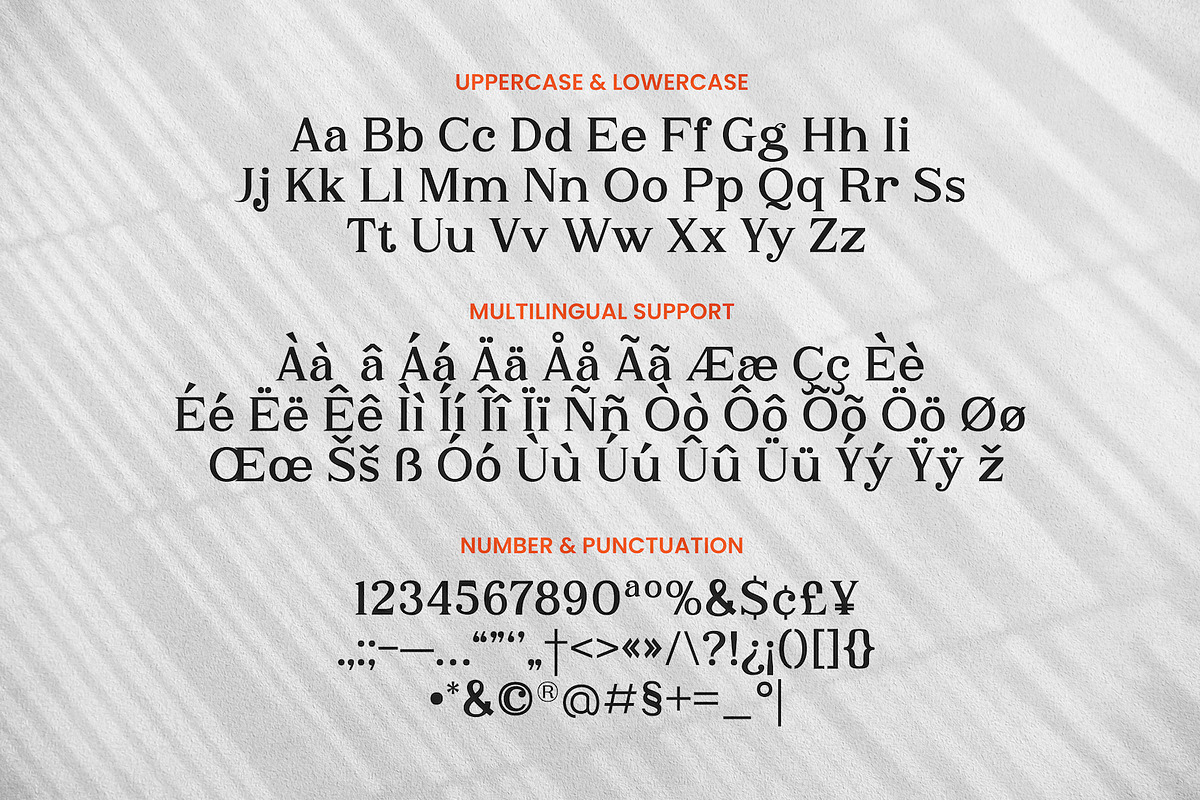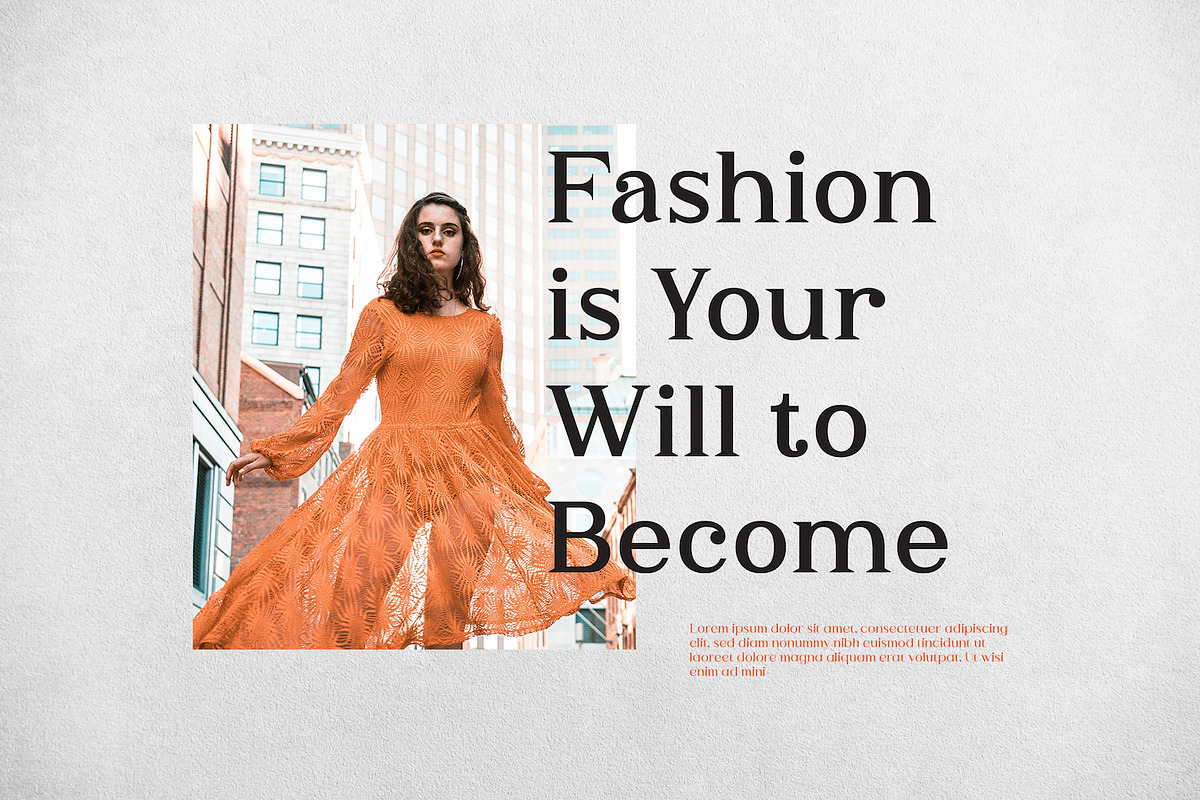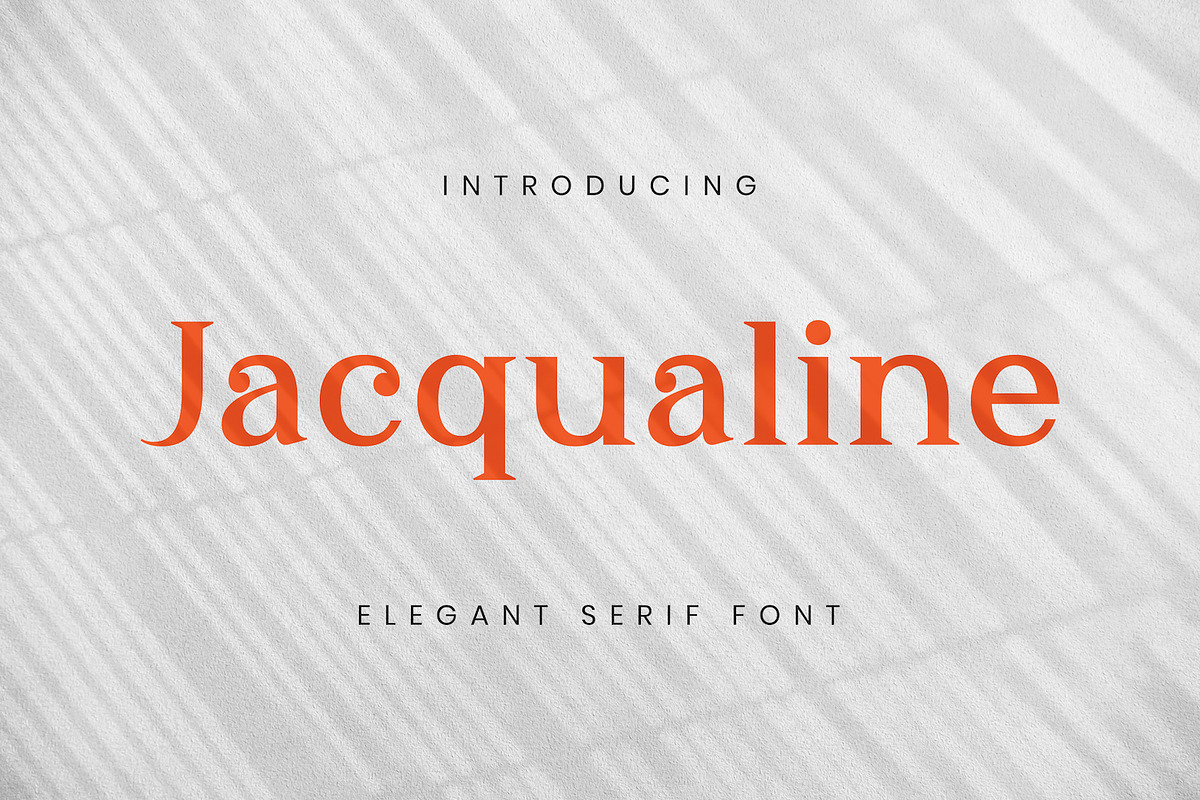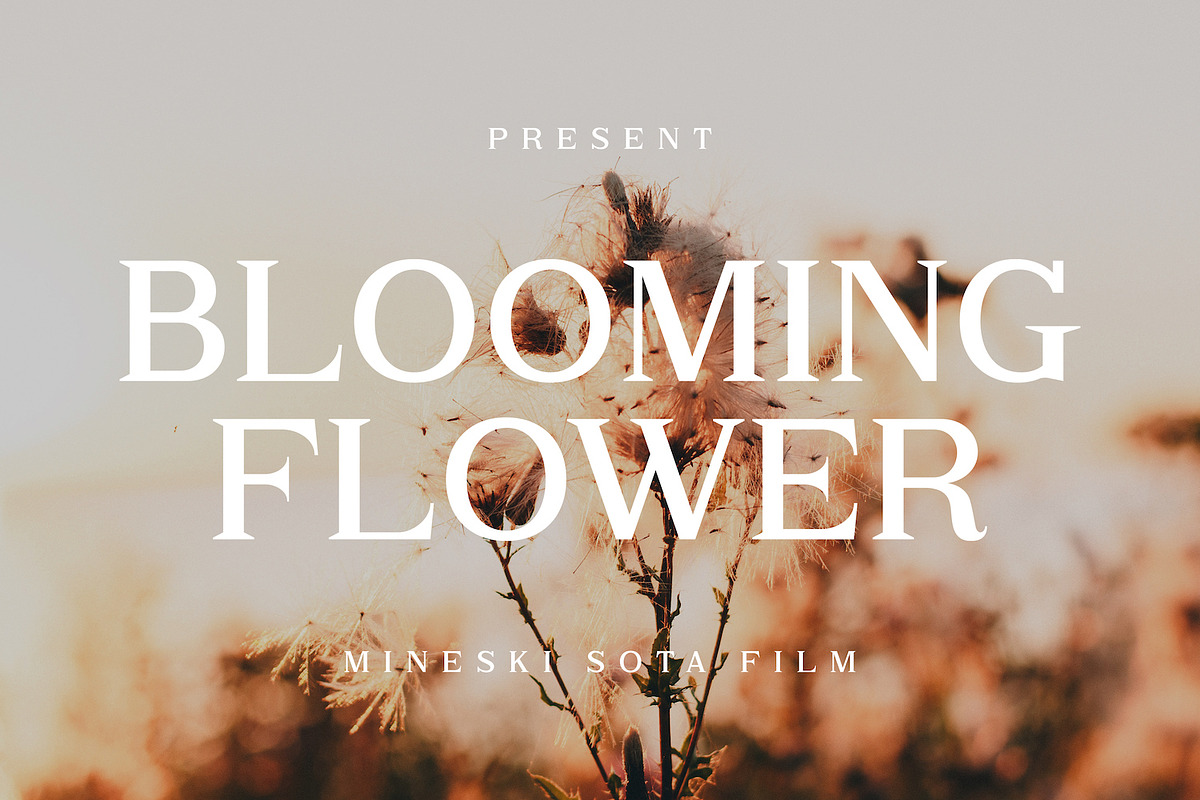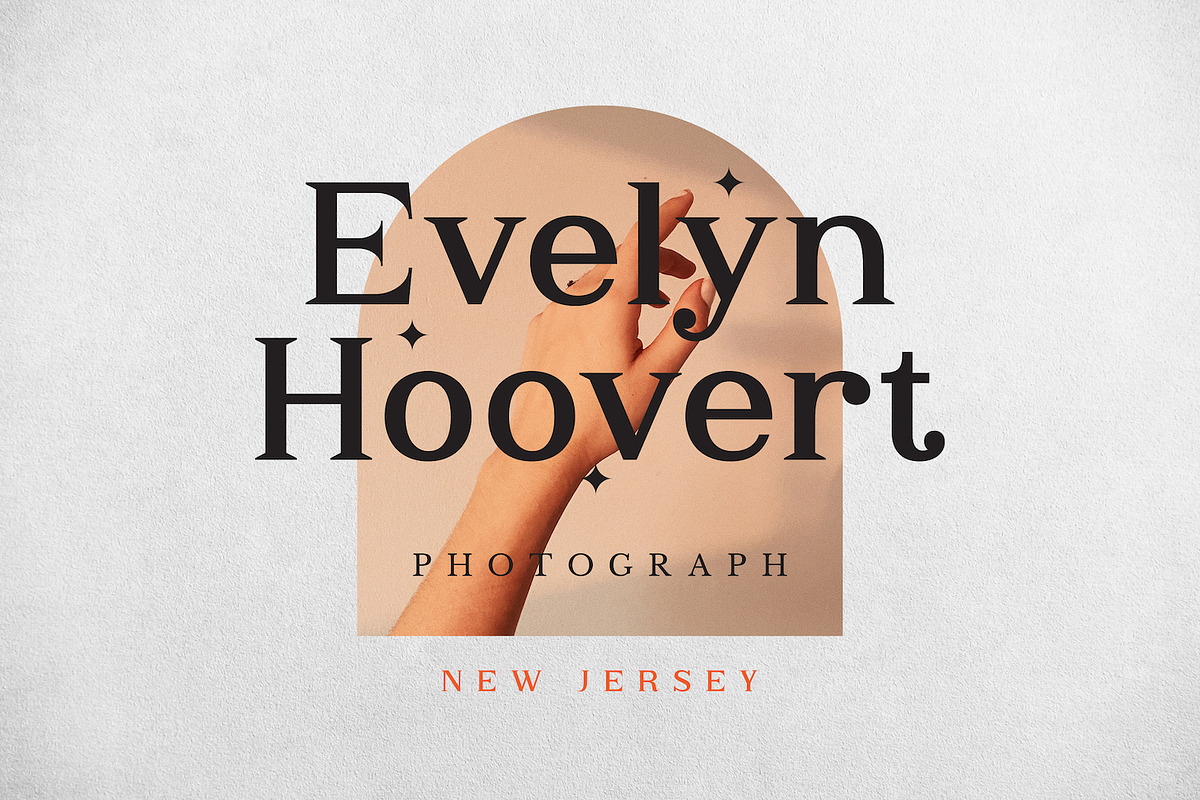
Jacqualine
Jacqualine an elegant and highly versatile serif font designed to bring a touch of luxury, sophistication, and editorial flair to your creative projects. Blending timeless classical structures with contemporary design accents, this font features distinct, expressive character traits that make it a perfect choice for branding, headlines, editorial design, magazine layouts, logo design, fashion photography, and modern poster design
Ton of Glyphs
Uppercase and Lowecase Characters.
Numerals and Punctuations.
Alternates and Ligatures.
Multilingual Support.